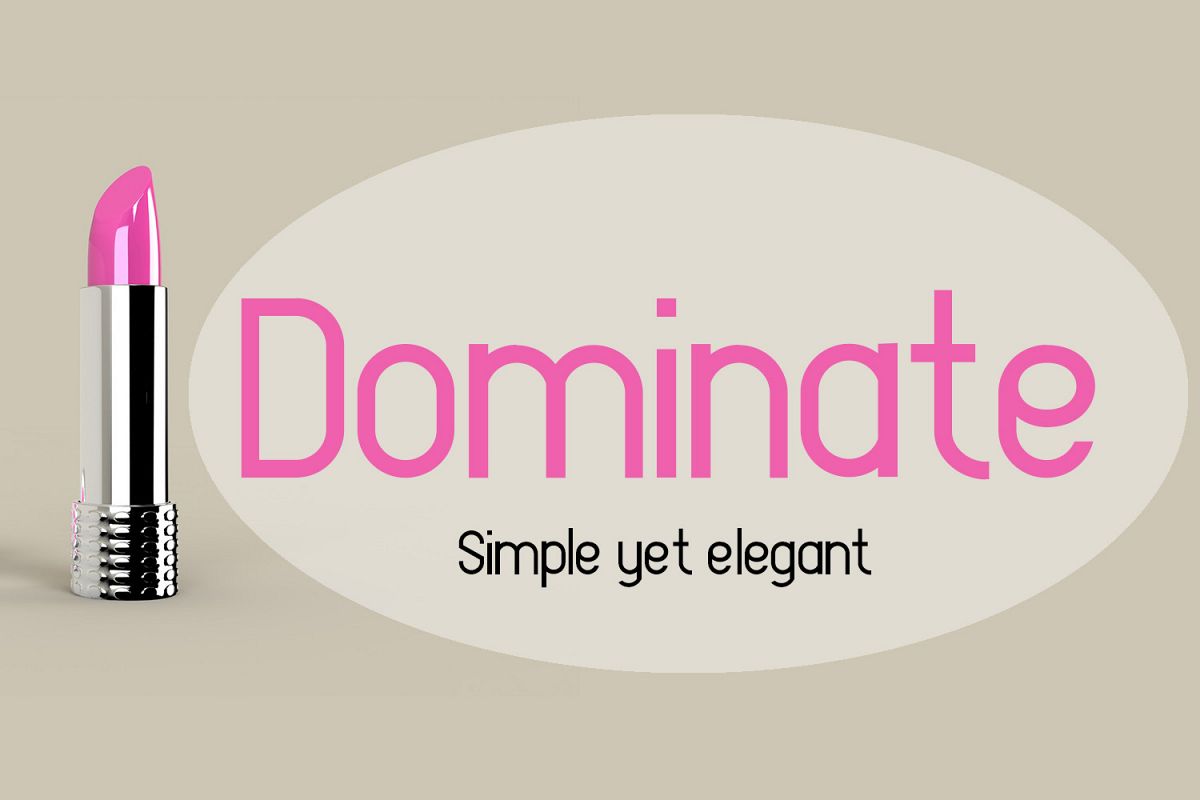
EP Dominate
DP Dominate - Simple Yet Elegant
The font is best suited for Stationary, Headlines, Fashion Industry, Commercials and any type of print design.